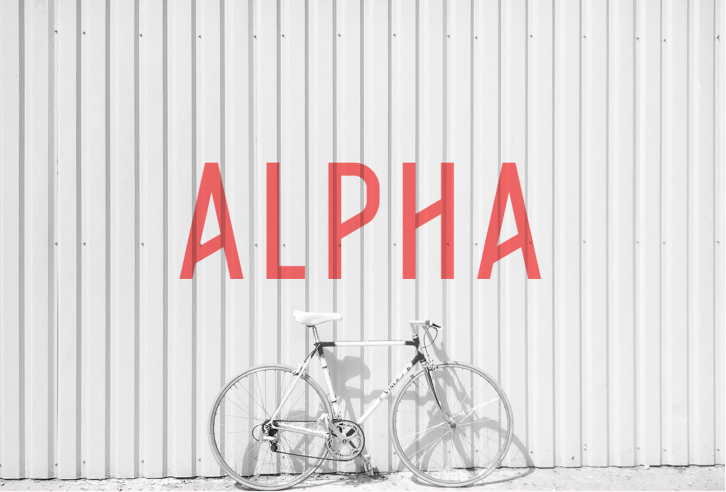
Alpha font comes with its minimalist design, focusing solely on uppercase letters and adding just a period for punctuation, as suggested by its name. This font family brings simplicity and functionality to the table, ideal for those who appreciate clean design in their projects.